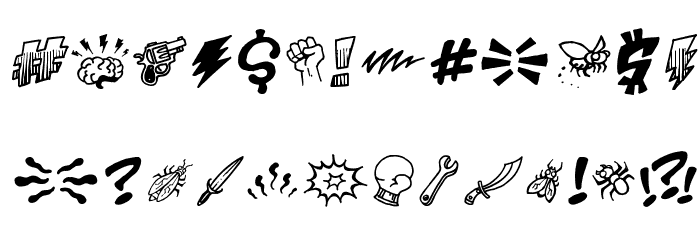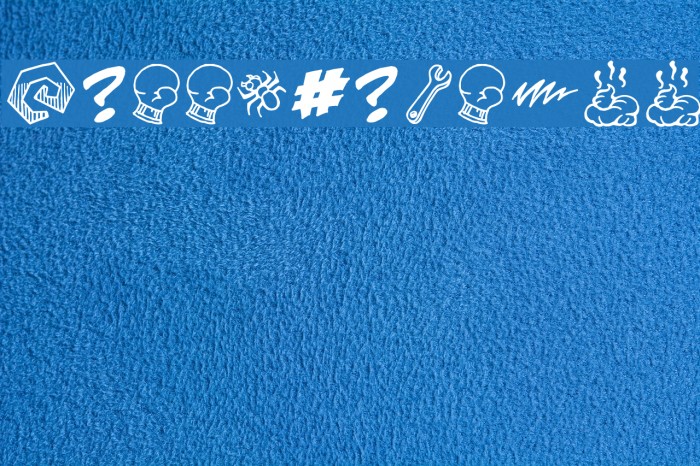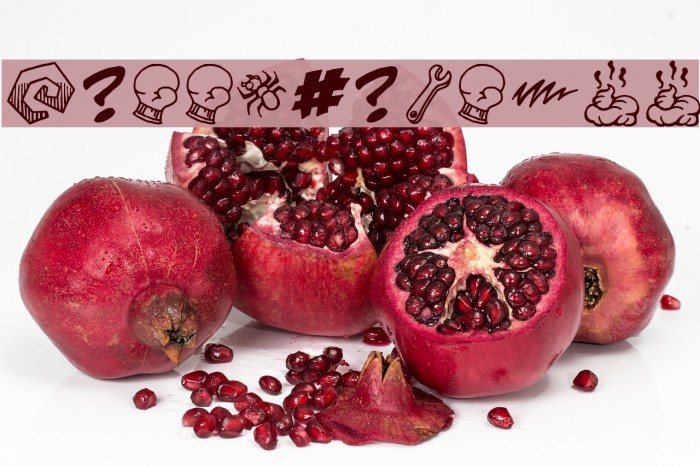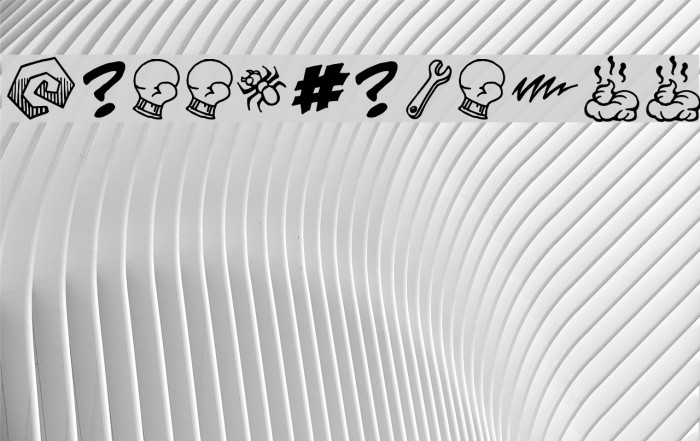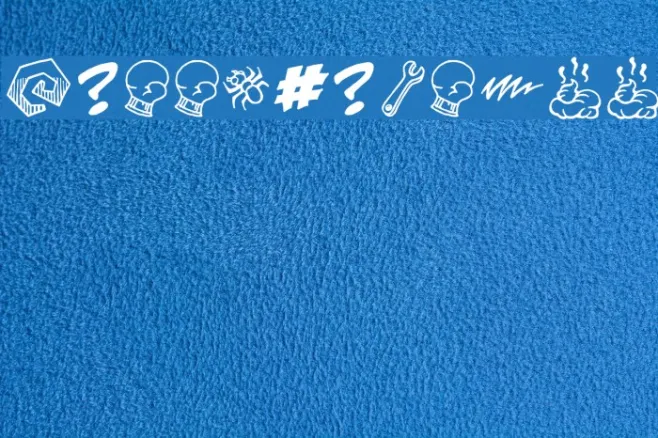
PottyMouthBB Font
This font is a playful and expressive collection of cartoon-style symbols and icons. It features a variety of whimsical and exaggerated illustrations, including skulls, swirls, lightning bolts, and comic-style explosions. The characters are bold and dynamic, with thick lines and a hand-drawn aesthetic that adds a sense of fun and creativity. The font is designed to convey emotion and action, making it ideal for projects that require a lively and energetic visual impact. Each symbol is unique, offering a wide range of expressive possibilities.
A playful, cartoon-style font with bold, expressive symbols and icons.
- Font: PottyMouthBB
- Proposed Projects: Ideal for comic books, graphic novels, children's books, playful branding, and creative posters.
- Overall Style: Playful, Cartoonish, Energetic
- Use Case: Logos, Posters, Comics